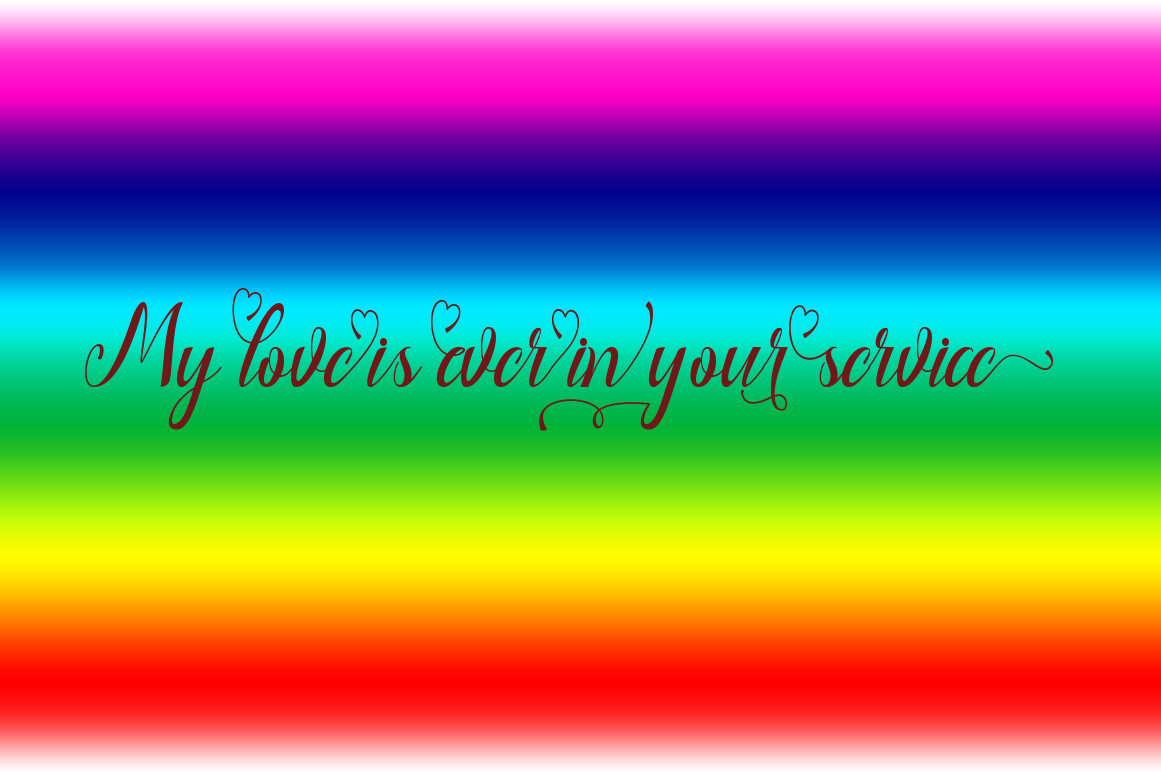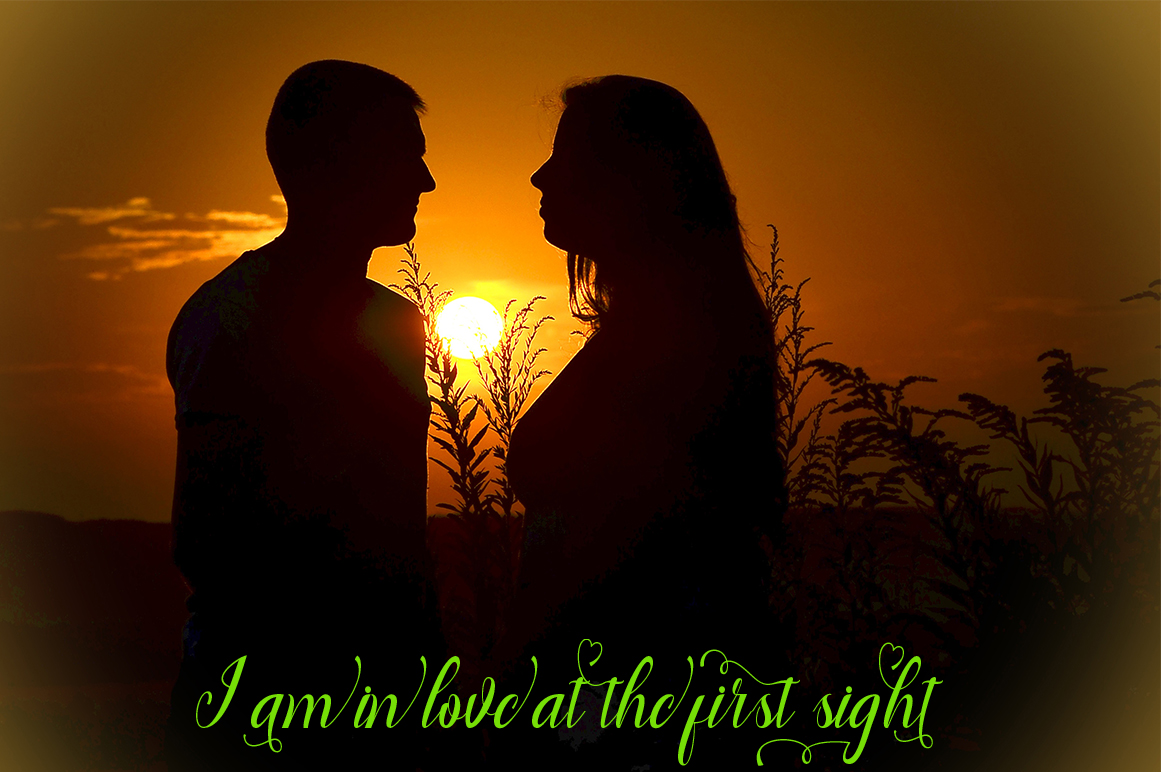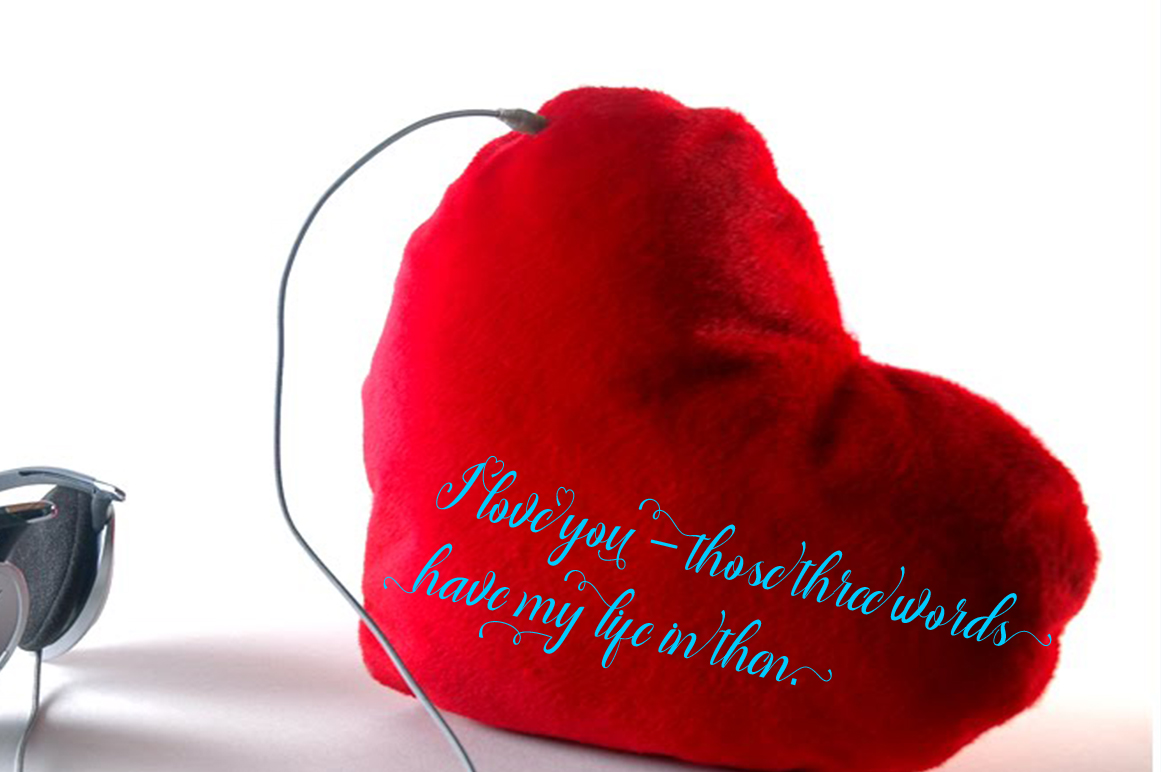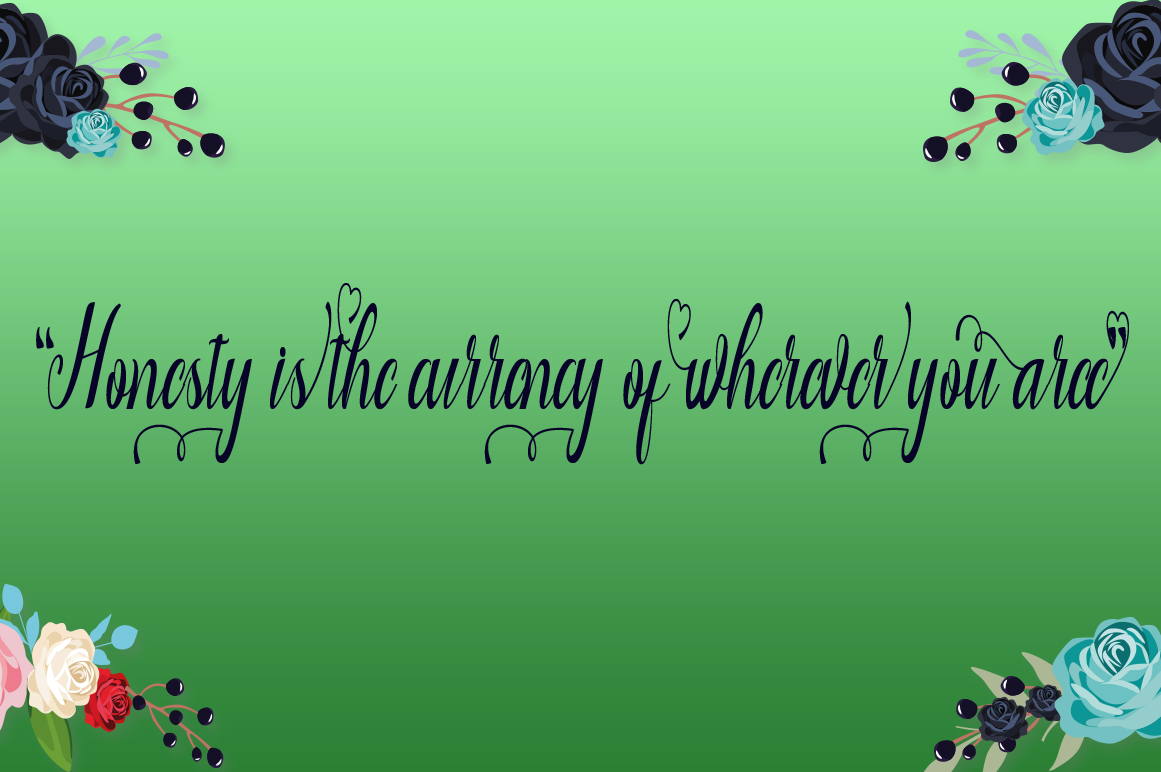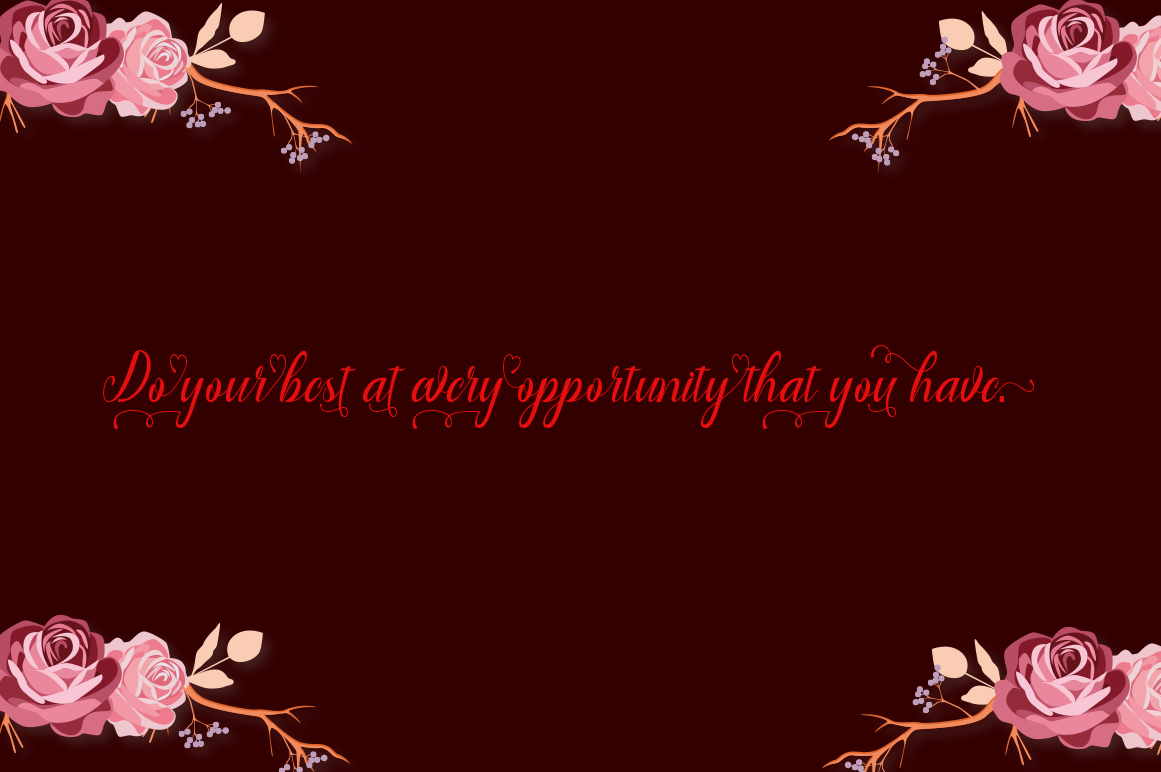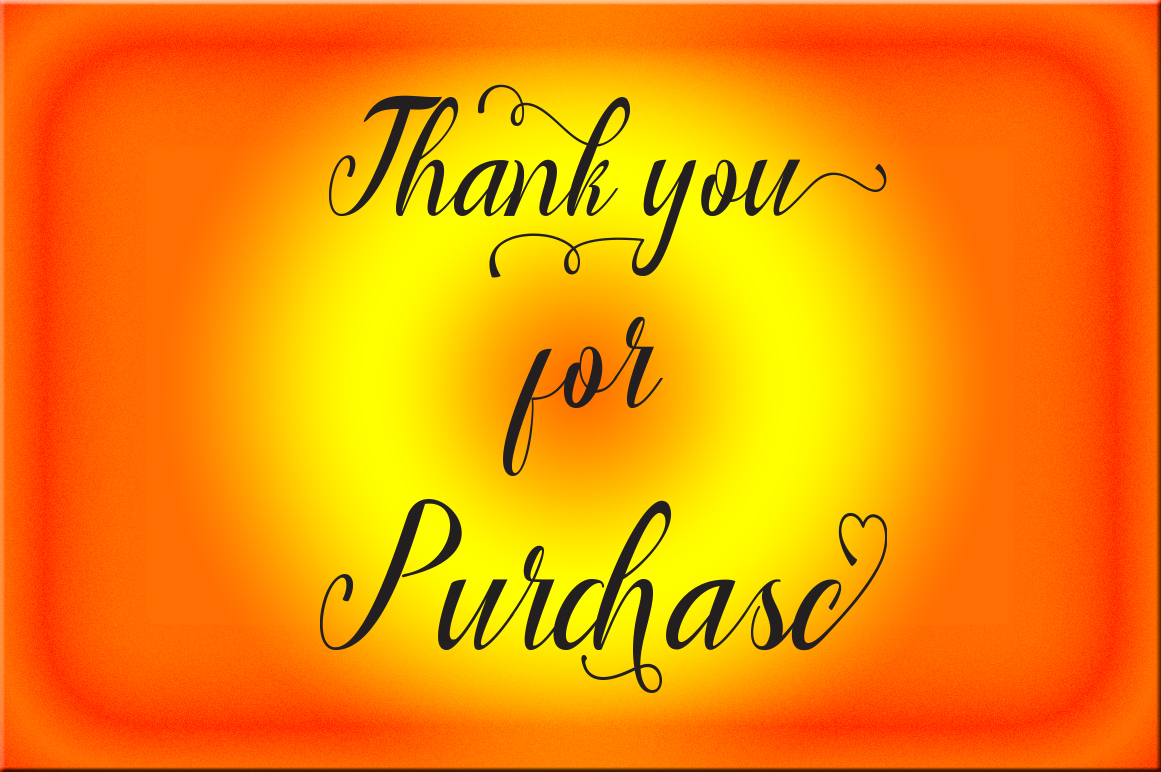
HomeScript FontsLantakaju Font Script Fonts Lantakaju Font FacebookXPinterestWhatsApp Lantakaju Font Poster 2 Lantakaju Font Poster 3 Lantakaju Font Poster 4 Lantakaju Font Poster 5 Lantakaju Font Poster 6 Lantakaju Font Poster 7 About Lantakaju Font Lantakaju is a modern calligraphic-style font. It was designed by hand, and digitally optimized. DOWNLOAD ON CREATIVE FABRICAThis font is sold and delivered by Creative Fabrica. Font Canyon may earn a commission if you buy through this link. People also explored Cherlynda Font Thicker Font Village Font Dreamline Font Balytmore Hanlits Font Mondaylisa Font Magic Wand Font Hobbit Font Love in Kendal Font 314 0 TagsLantakaju Font Previous articleLady Slippers Ornaments FontNext articleSignboard Font LEAVE A REPLY Cancel reply Comment: Please enter your comment! Name:* Please enter your name here Email:* You have entered an incorrect email address! Please enter your email address here Website: Save my name, email, and website in this browser for the next time I comment. Personal Use Free Cloudy Night Personal Use Free Read more about this font Brandon Bromley Personal Use Free Read more about this font Ancient Script Personal Use Free Read more about this font Frozdotre Personal Use Free Read more about this font BLOG How to Install and Use Fonts on Windows, macOS, and Web Projects How to Install and Use Fonts on Windows, macOS, and Web Projects Fonts are a crucial part of design and branding. Whether you’re designing a... Elegant Wedding Invitation Fonts – Handwritten & Script Fonts Transform Your Website: Elevate Your Typography with 7 Best Web Font Generators How to Cut Any Font on Cricut: Convert a Font to SVG (Free)